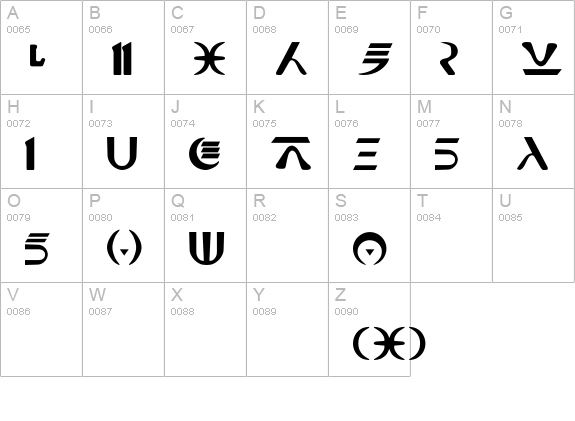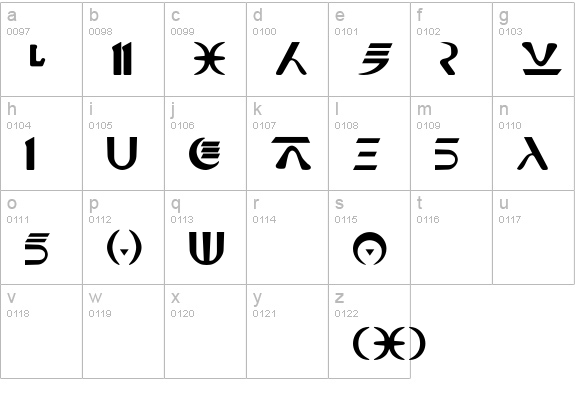
Naboo_Futhork Font Details
Naboo_Futhork font is a stunning and intricate typeface inspired by ancient runic alphabets, exuding a mystical and enchanting aura. Its intricate lines and unique design capture the essence of ancient Northern European cultures, making it a perfect choice for projects that require a touch of mysticism and history. This captivating font is meticulously crafted with attention to detail, ensuring each character is beautifully rendered and visually appealing. Whether used for branding, book covers, posters, or any other design project, Naboo_Futhork font adds a touch of magic and authenticity. What's even more amazing is that Naboo_Futhork font is available for free download at FontsMarket.com. This means you can easily access this extraordinary typeface and incorporate it into your designs without any cost. Don't miss out on the opportunity to enhance your projects with the captivating charm of Naboo_Futhork font – download it today and let your creativity soar.